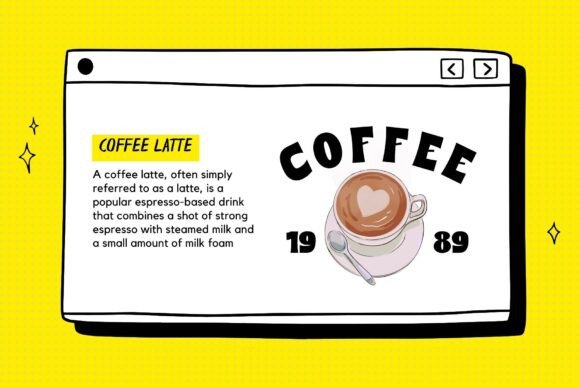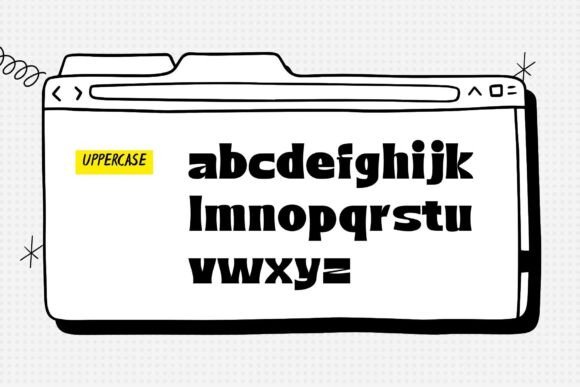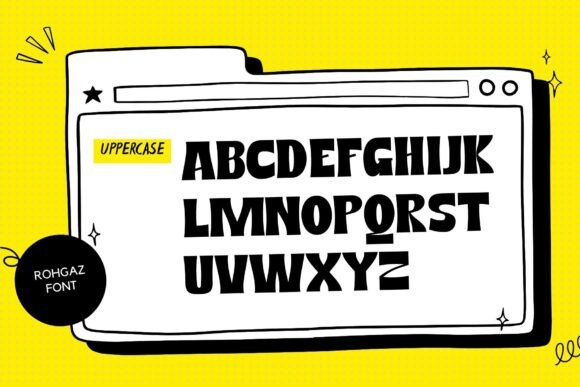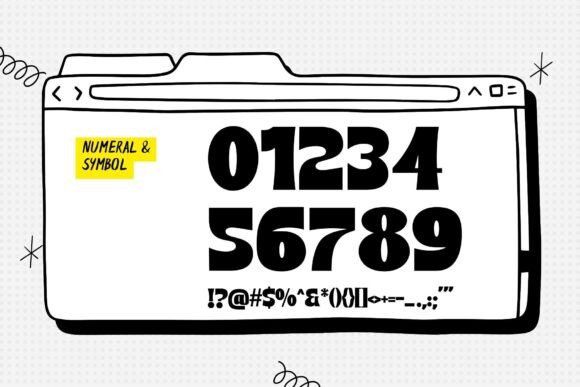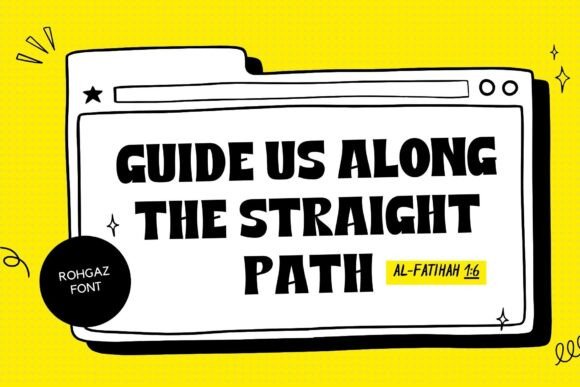
Introduction to Rohgaz Font
Experience the eloquent balance of the Rohgaz Font, a uniquely stunning typeface that seamlessly integrates into a multitude of design schemes.
Whether youโre creating striking logos, engaging social media content, attention-grabbing advertisements, or innovative product designs, Rohgaz Font amplifies the aesthetic impact This artfully developed font is your key to elevating design quality, ensuring a breathtaking visual experience every time.
Key Features of Rohgaz Font
Why Choose Rohgaz Font?
Rohgaz Font offers exceptional quality and versatility, making it a valuable addition to your design toolkit. Whether you’re creating for personal projects or commercial use, Rohgaz Font delivers professional results.